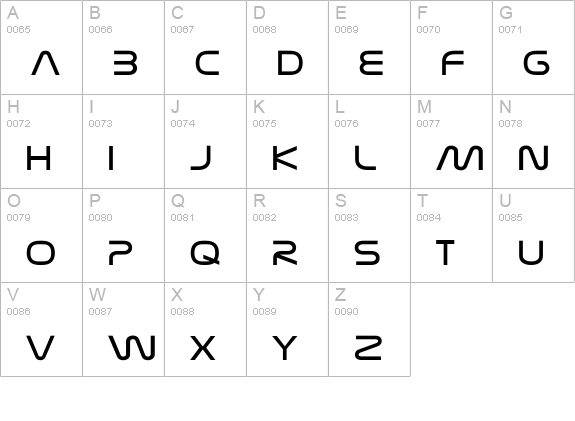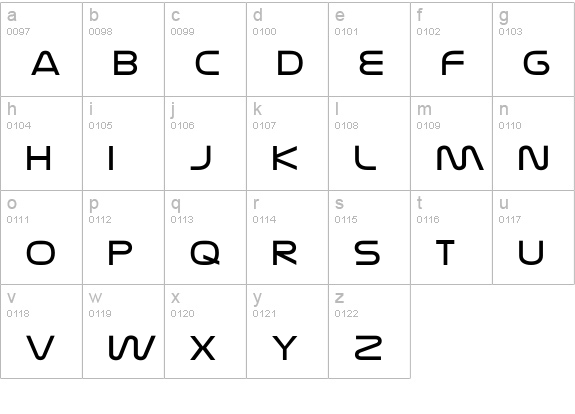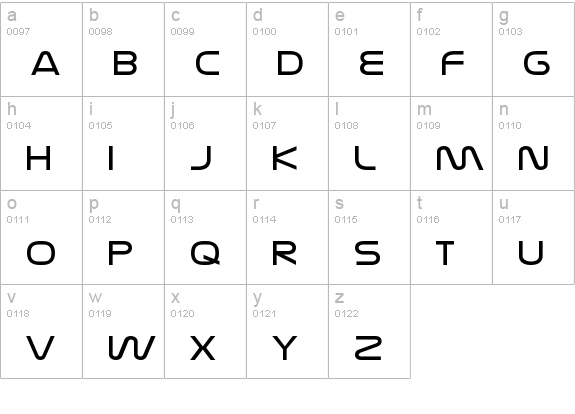
Nasalization Extended Light is a refined, elegant, extended-width variant in the Nasalization typeface family \xE2\x80\x94 well suited to elegant body text, refined sub-headings, and luxury branding.
Nasalization Extended Light font is a modern and sleek typeface that exudes sophistication and elegance. With its clean lines and subtle curves, this font is perfect for creating a contemporary and stylish look in your design projects. The light weight of Nasalization Extended Light adds a touch of delicacy and refinement to any text, making it ideal for use in headings, logos, and branding materials. What's more, Nasalization Extended Light font is available for free download at FontsMarket.com. This means you can easily access this high-quality font without any cost, making it a fantastic choice for designers and creatives looking to elevate their projects with a touch of sophistication. Download Nasalization Extended Light font today and give your designs a modern and polished edge.